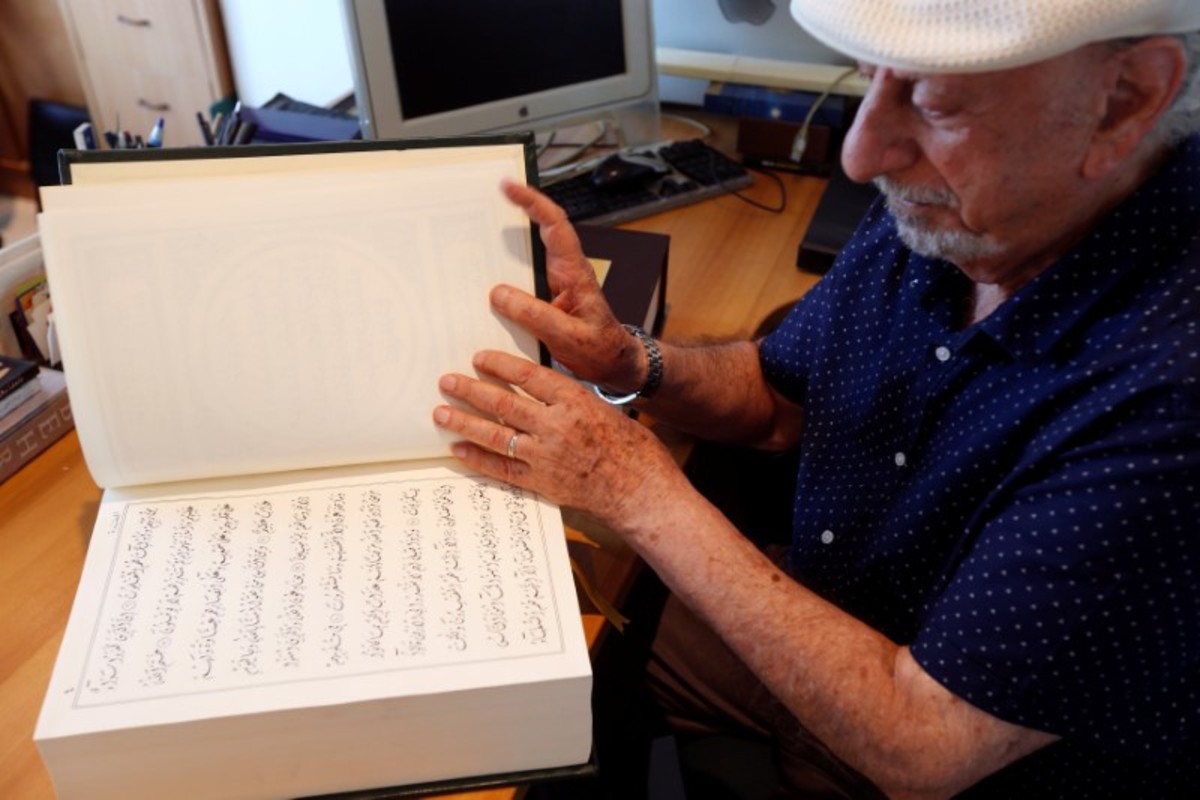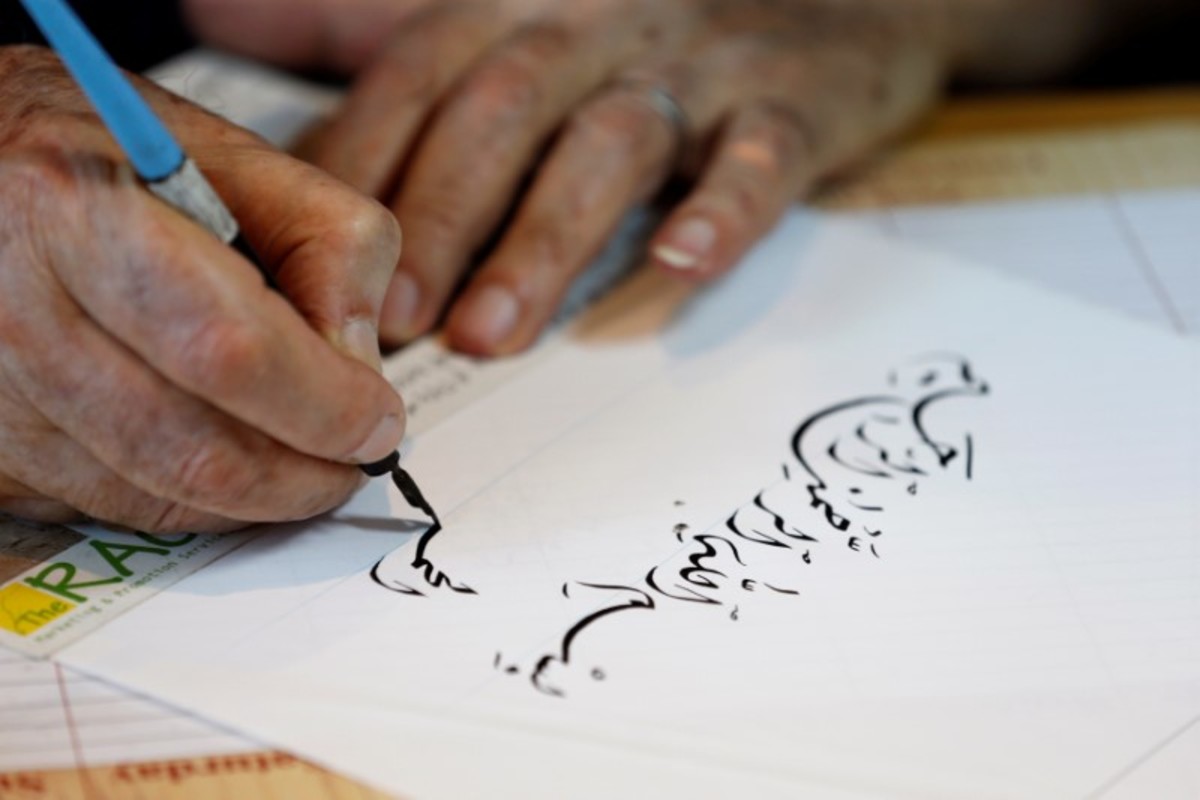
Calligrapher pens Koran in complex Arabic Diwani font
Mahmoud Bayoun, a Lebanese calligrapher paints Koran versus as he sits in his office in Beirut, Lebanon June 23, 2017. Picture taken June 23, 2017. REUTERS/Mohamed Azakir
BEIRUT (Reuters) - A Lebanese calligrapher has completed a two-year project to hand write a copy of the Koran, Islam's holy book, in the rarely-used and delicate Arabic-language Diwani font.
Mahmoud Bayoun, 80, believes this is the first time this has been done. In Diwani font, each letter can be written six or seven ways.
"I wanted to do something no one has done", Bayoun told Reuters. "All fonts can be computerized but the Diwani font can't - because all computer fonts meet at a horizontal line but the Diwani (font) goes above, on and below the line."
Lebanese calligrapher, Mahmoud Bayoun, gestures as he speaks during an interview with Reuters at his office in Beirut, Lebanon June 23, 2017. Picture taken June 23, 2017. REUTERS/Mohamed Azakir
The Koran, approximately containing around 6,300 verses, is traditionally written in the Naskhi font, which is designed to be easy to read and write.
Bayoun, who had previously written out the Koran four times in simpler script, has studied calligraphy since he was 14 and is the official calligrapher of Lebanon's prime minister.
He is unsure what will become of his latest work, but said that if the book does not find its own path, then it will be passed on to his children.
Lebanese calligrapher, Mahmoud Bayoun, writes ''In the name of God, the Most Gracious, the Most Merciful" using the Diwani font at his office in Beirut, Lebanon June 23, 2017. Picture taken June 23, 2017. REUTERS/Mohamed Azakir
Lebanese calligrapher, Mahmoud Bayoun, displays the Koran (R) that he wrote in Diwani font, at his office in Beirut, Lebanon June 23, 2017. Picture taken June 23, 2017. REUTERS/Mohamed AzakirLebanese calligrapher, Mahmoud Bayoun, turns the pages of the Koran that he wrote in Diwani font, at his office in Beirut, Lebanon June 23, 2017. Picture taken June 23, 2017. REUTERS/Mohamed AzakirA view shows the Koran, written in Diwani font by Lebanese calligrapher Mahmoud Bayoun, at Bayoun's office in Beirut, Lebanon June 23, 2017. Picture taken June 23, 2017. REUTERS/Mohamed Azakir